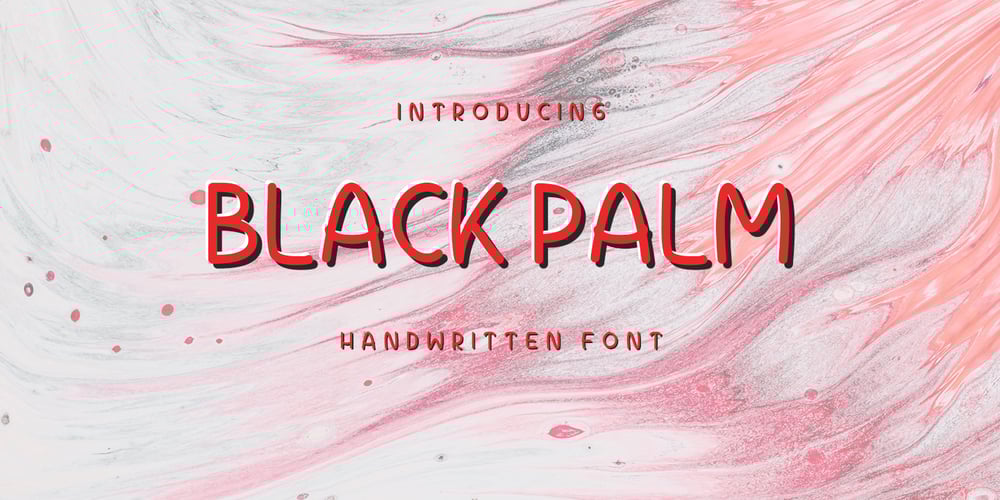
Black Palm Font Family was designed by Amar Lettering and published by Just Lett. Black Palm contains 1 styles and family package options. Black Palm is handwritten font. Black Palm will be perfect for greeting cards, story books, posters, child books, handwritten notes, stand out brandings, and others.FEATURES: UPPERCASE lowercase Numeral and Puncuation Multilingual Accent Happy creating…